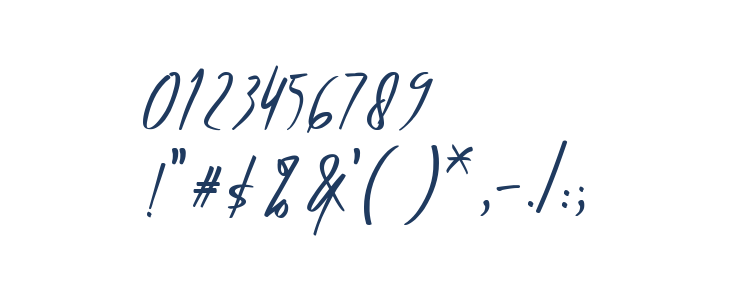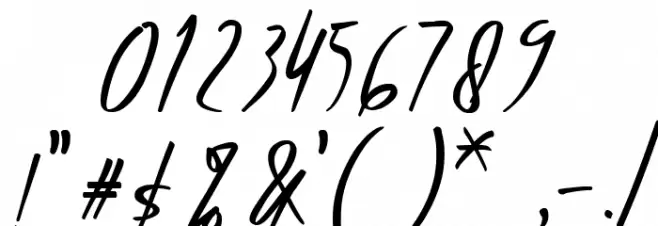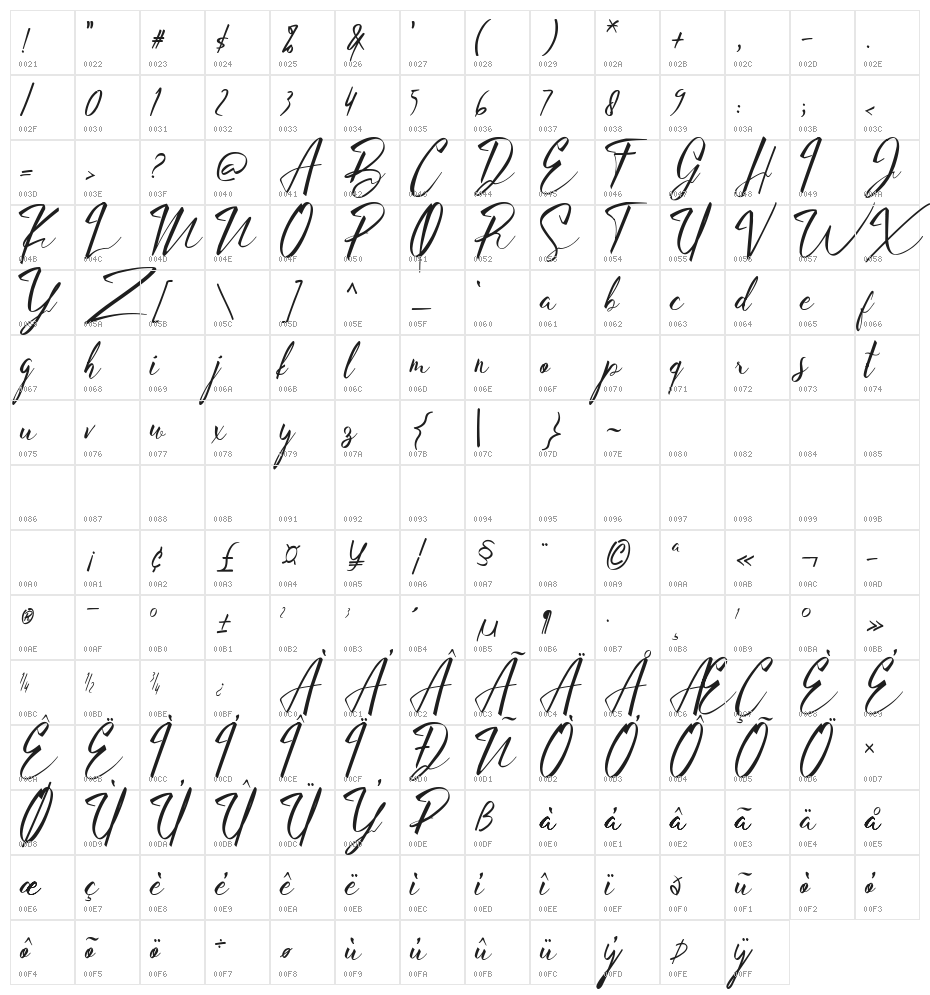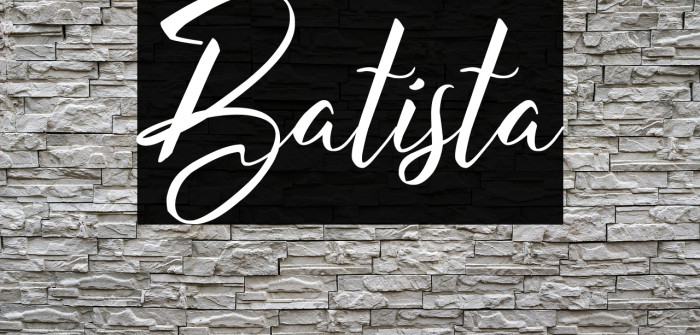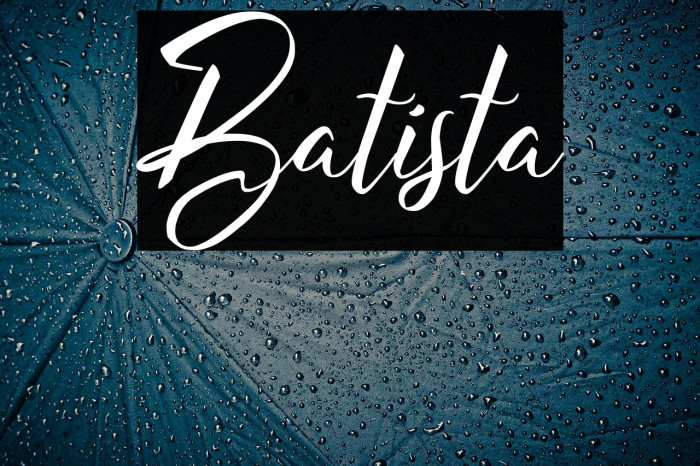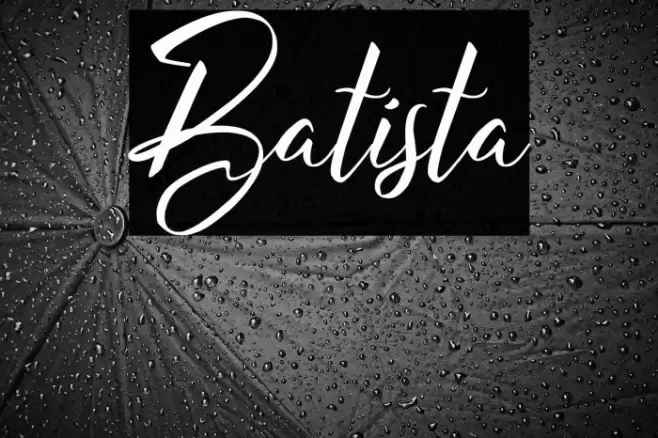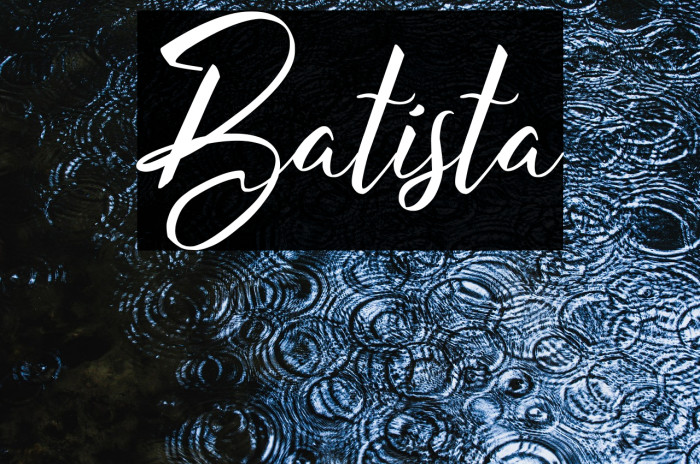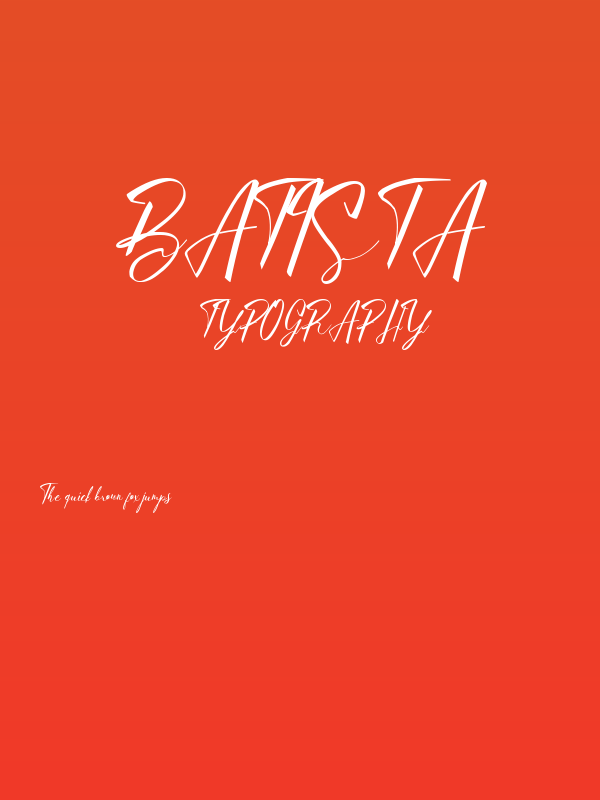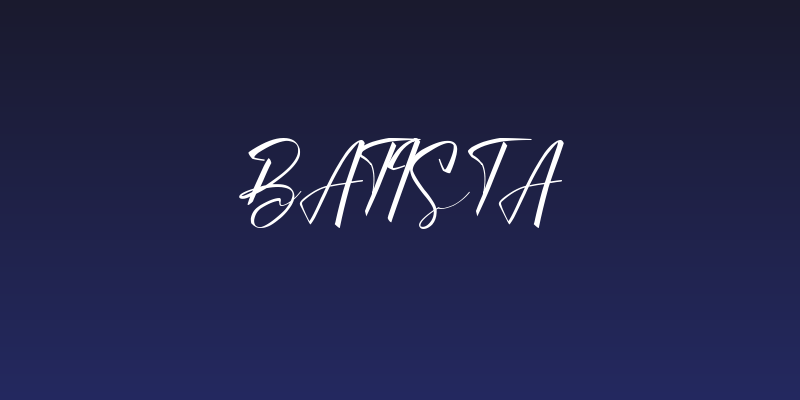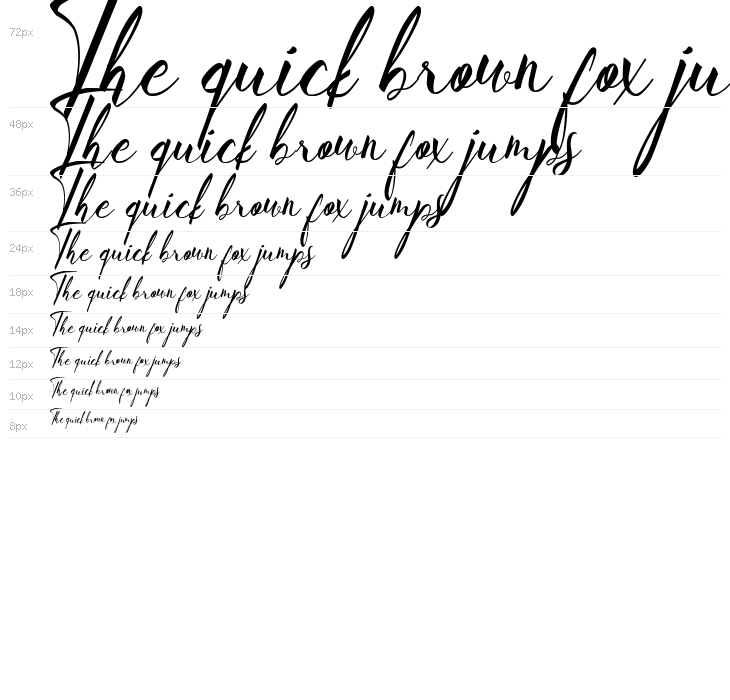
Batista Font
Batista Description
This font exudes a dynamic and elegant handwritten style, characterized by fluid, sweeping strokes that mimic the natural flow of cursive writing. The uppercase letters are bold and expressive, with a slight slant that adds a sense of motion and grace. The lowercase letters maintain a consistent rhythm, with loops and curves that enhance the script's fluidity. Numbers and special characters are crafted with the same attention to detail, ensuring a cohesive look across all glyphs. The overall appearance is both sophisticated and approachable, making it suitable for a variety of design applications.